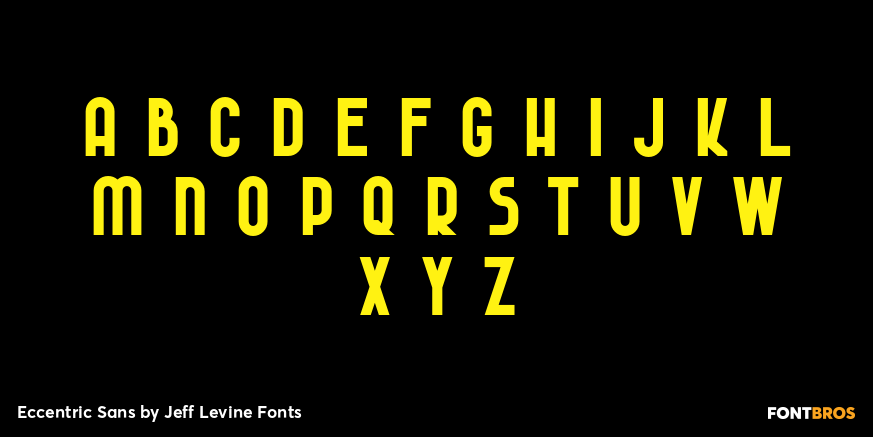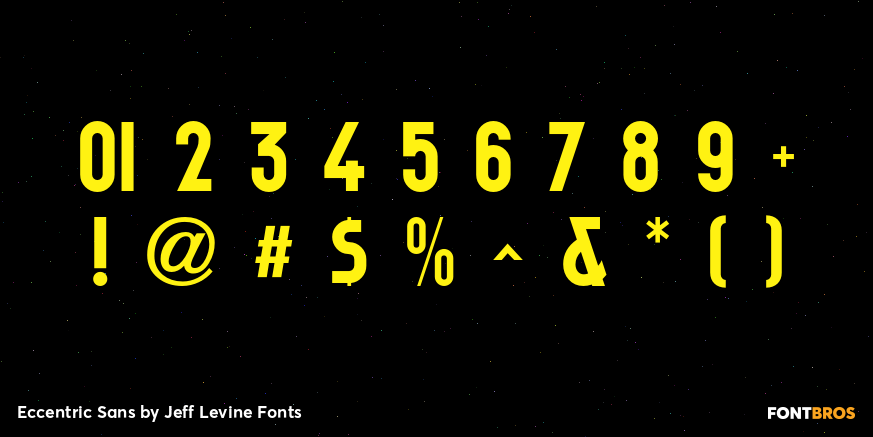
Eccentric Sans
An instructional page from a vintage lettering book displayed online showed the construction of an Art Deco sans design with varying widths and stylized character shapes. This was the basis for Eccentric Sans JNL, which is available in both regular and oblique versions.